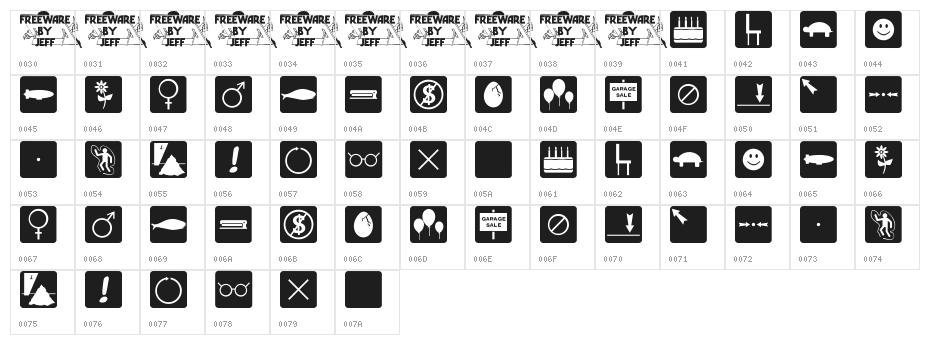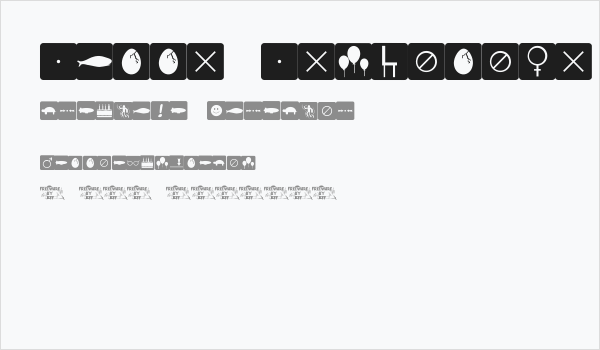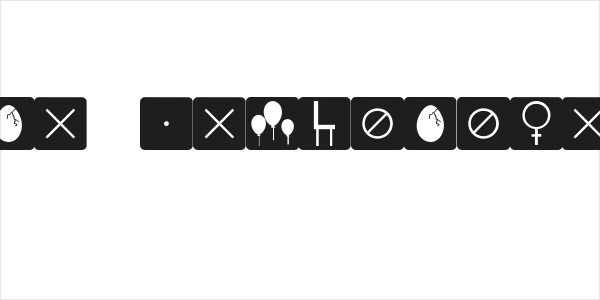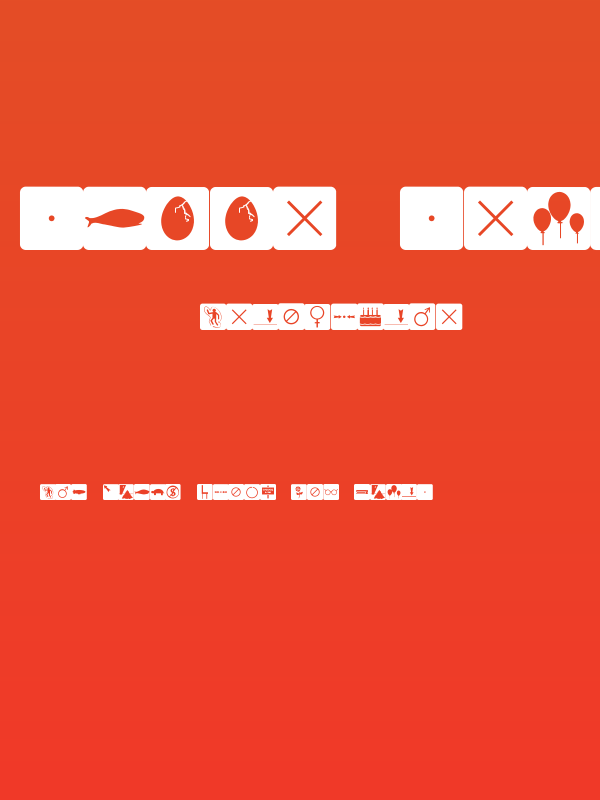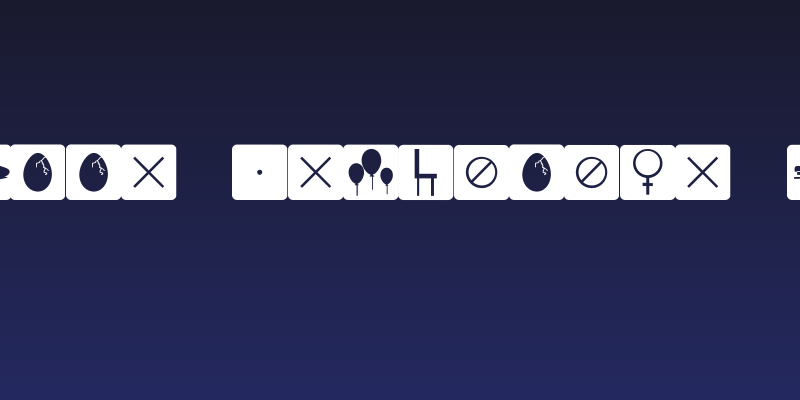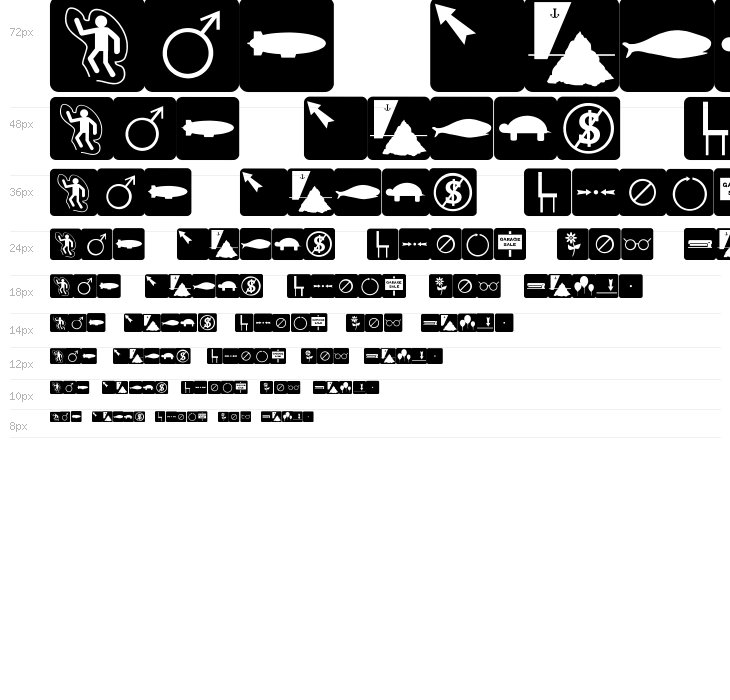
Silly Symbology JL Font
Silly Symbology JL Description
This is a symbolic font featuring a variety of playful and whimsical icons. The symbols include everyday objects, abstract shapes, and humorous illustrations, all enclosed in square blocks. The style is bold and clear, making each symbol easily recognizable. The icons are designed with a consistent line weight and a monochrome color scheme, providing a cohesive appearance. This font is ideal for creative projects that require a fun and informal touch, such as party invitations, children's books, or playful graphic designs. The symbols are versatile and can be used to convey a wide range of messages and themes.